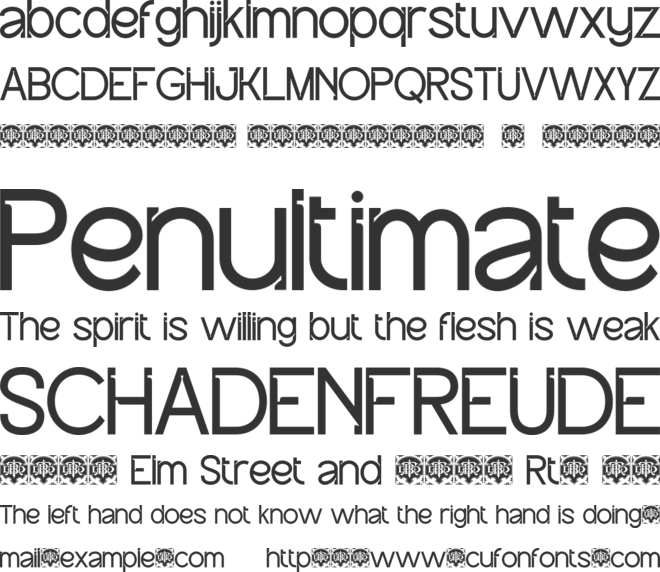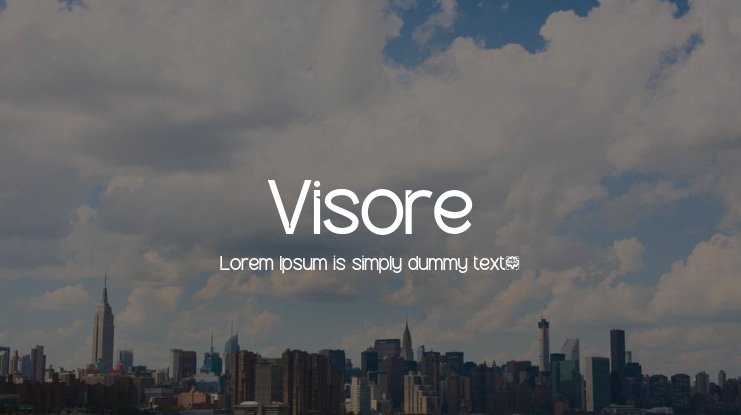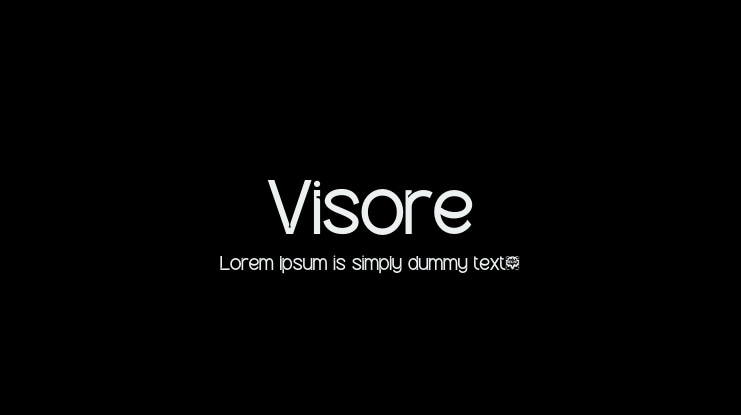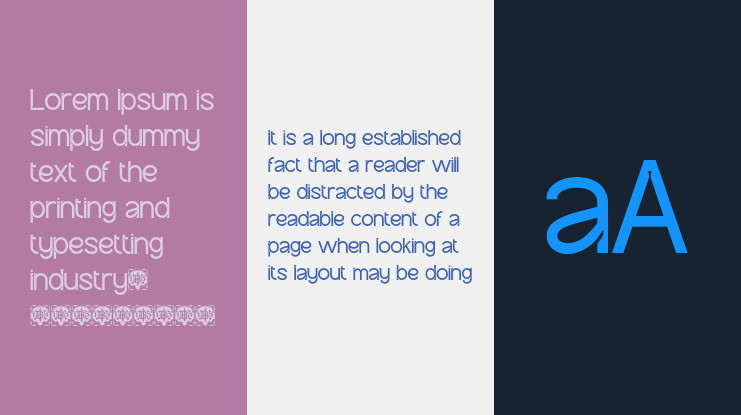
Visore Font
Introducing Visore: a sleek, simple, and unique style. Visore is a minimalist sans serif typeface designed to be visually appealing. This typeface captures the essence of an ink trap aesthetic, giving it a fresh and modern look. With support for multiple languages and ligatures, Visore is perfect for global brands or industries. Ideal for web design, posters, editorial design, and much more.